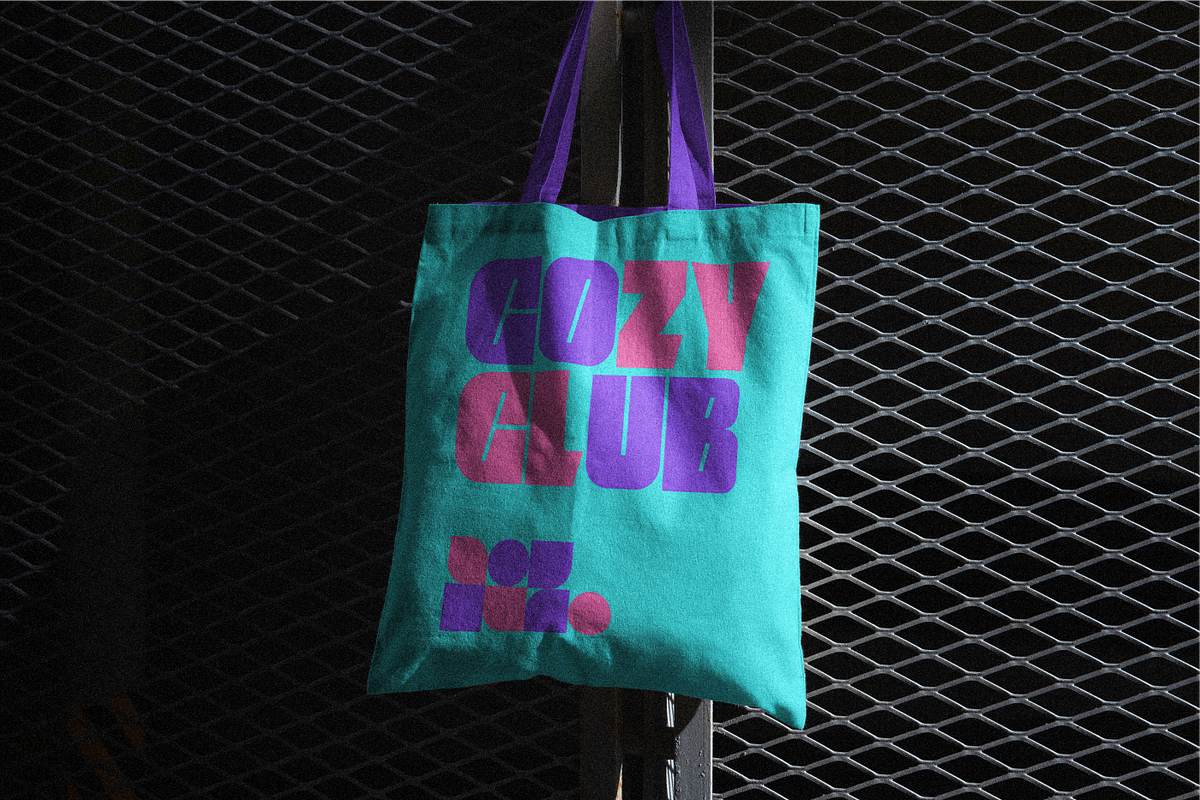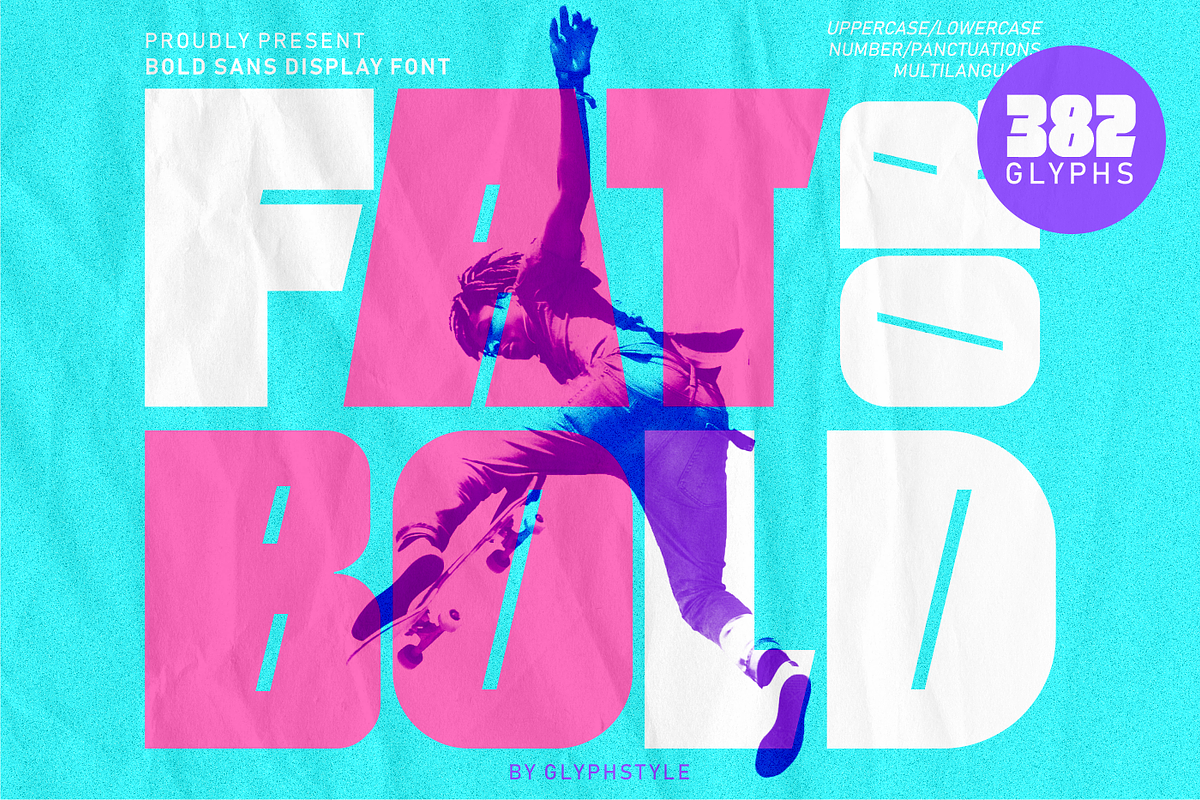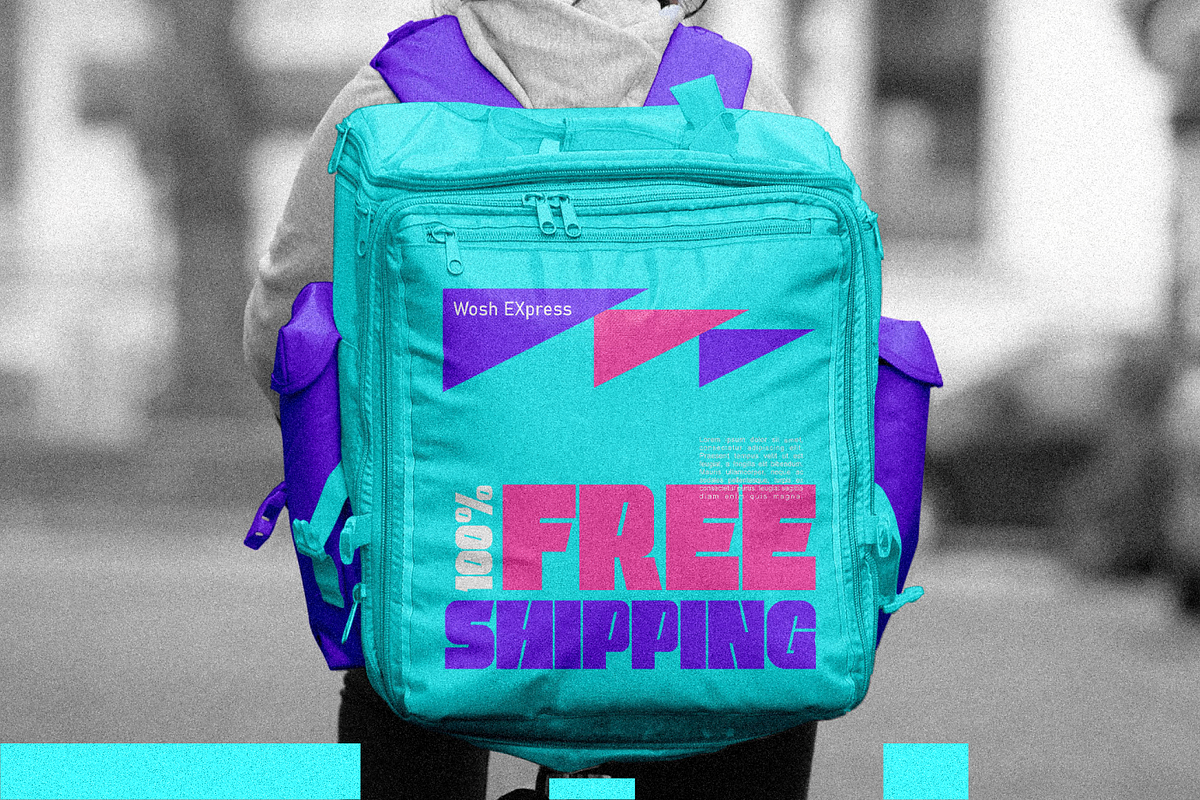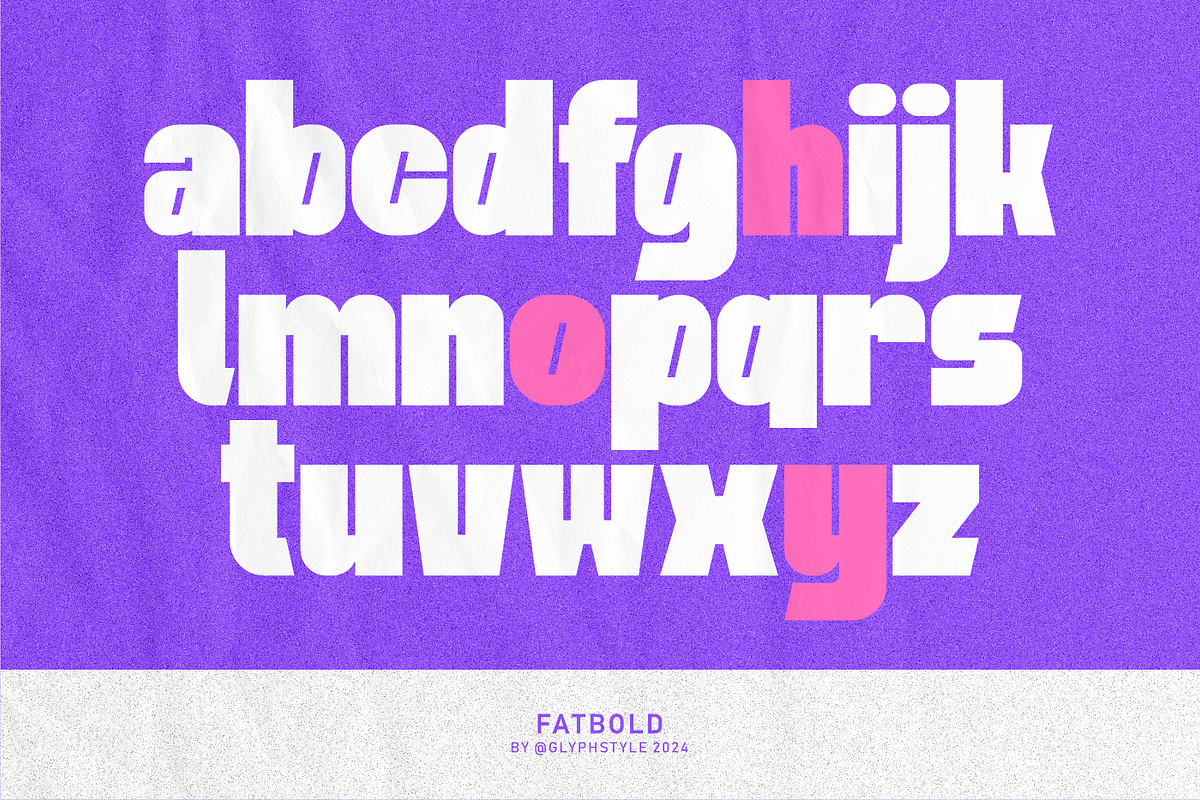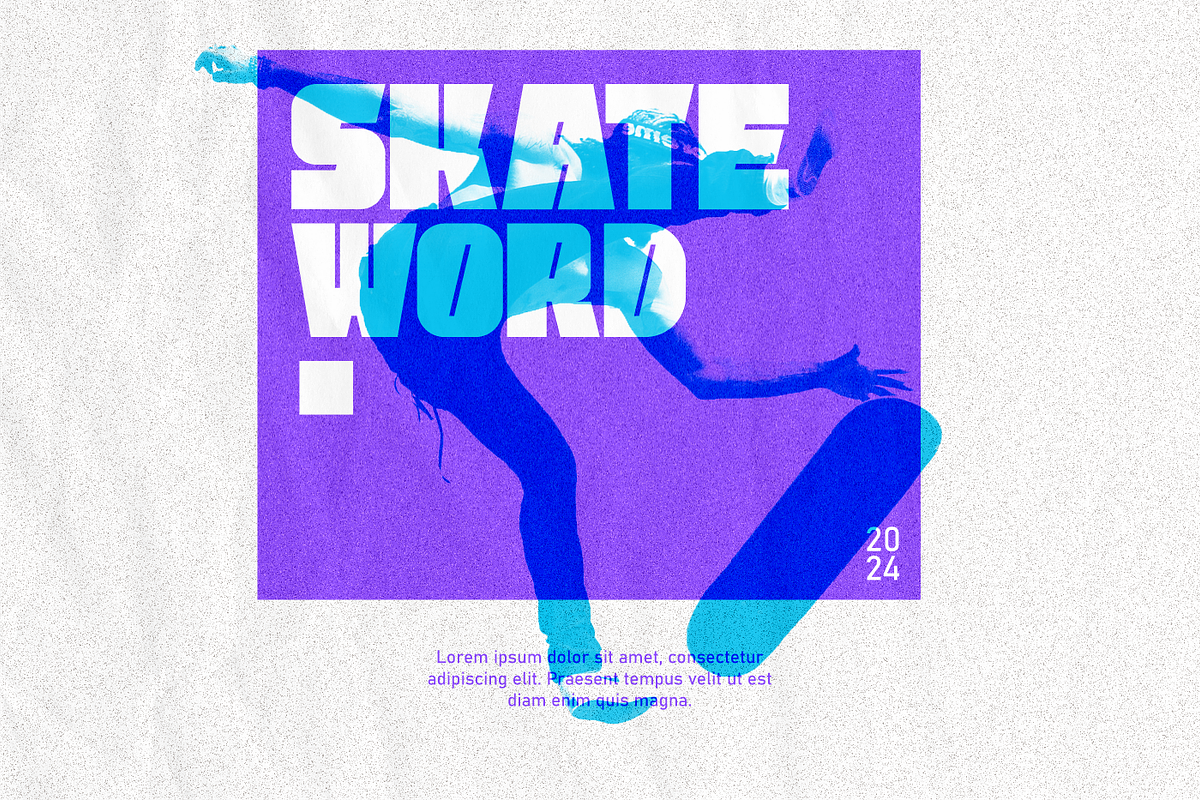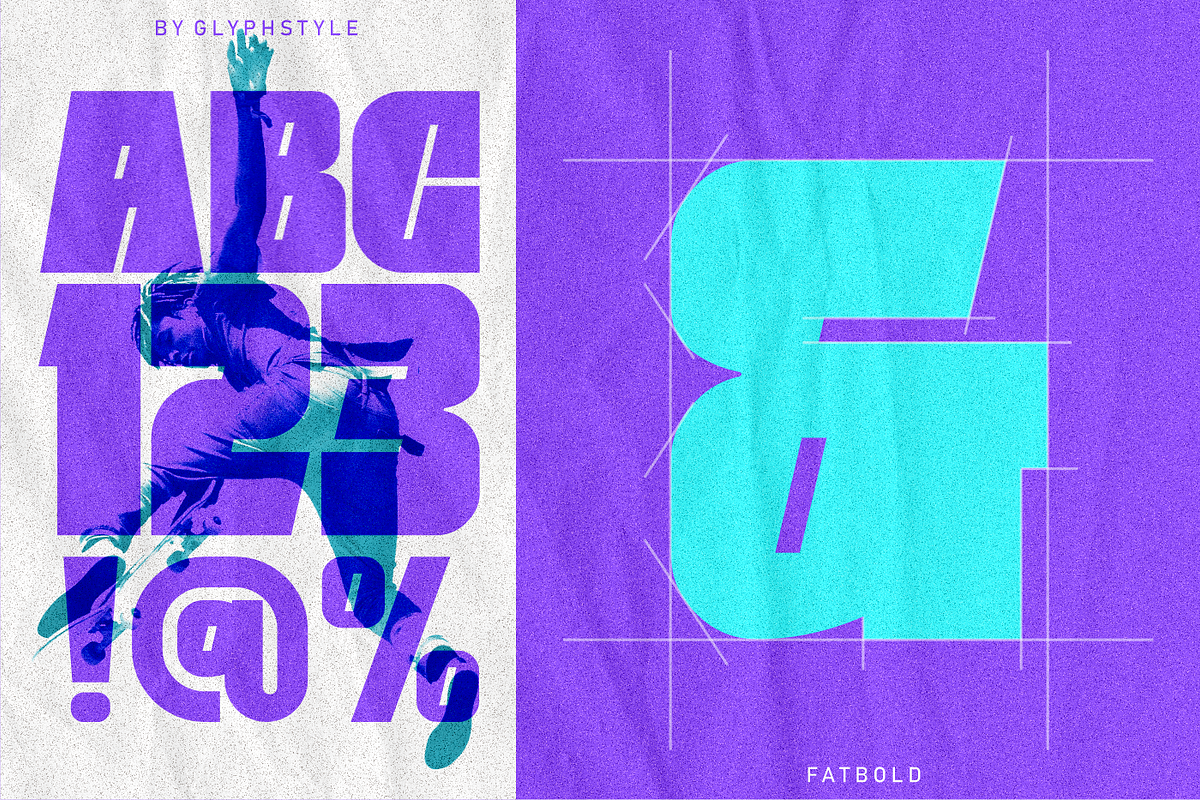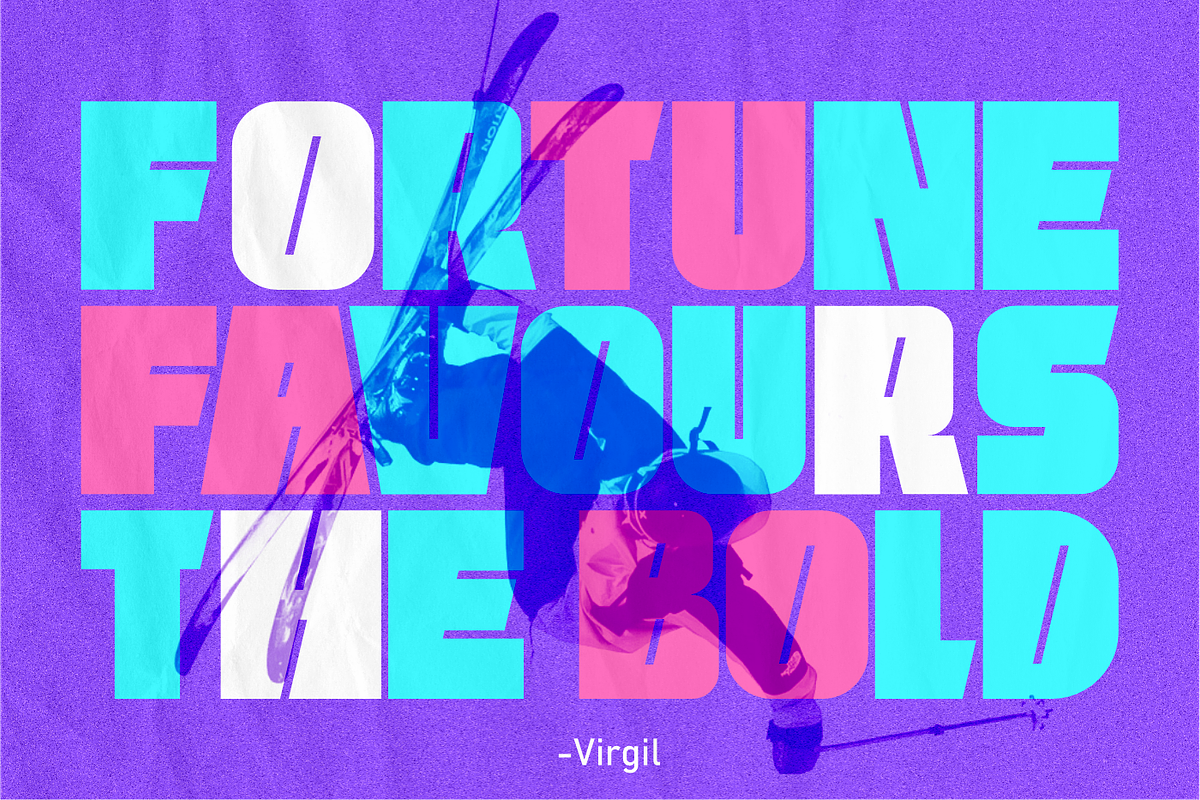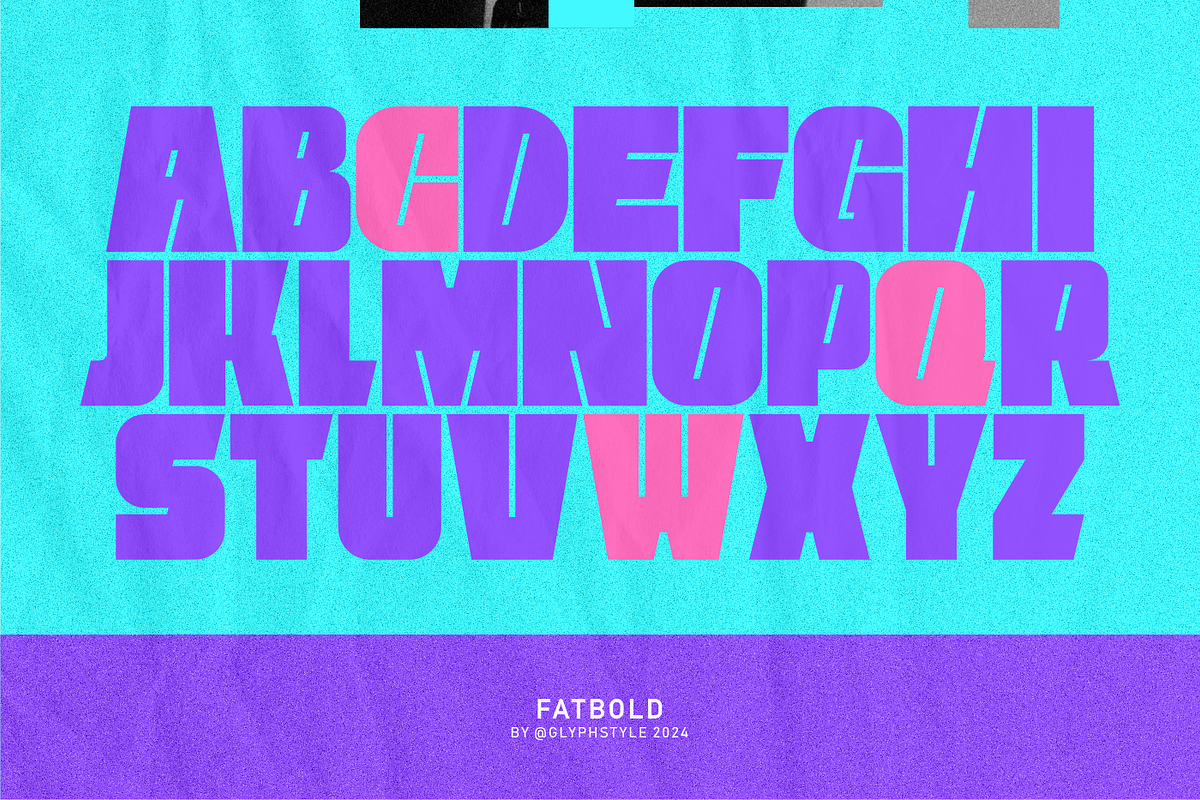
Fatbold Display
Fatbold is a fat and bold serif display font. This font has a boxy letter shape.
Fatbold is perfect for branding projects, logos, wedding designs, social media posts, advertisements, product packaging, product designs, labels, photography, watermarks, invitations, stationery, and any project that requires fat and bold block font.